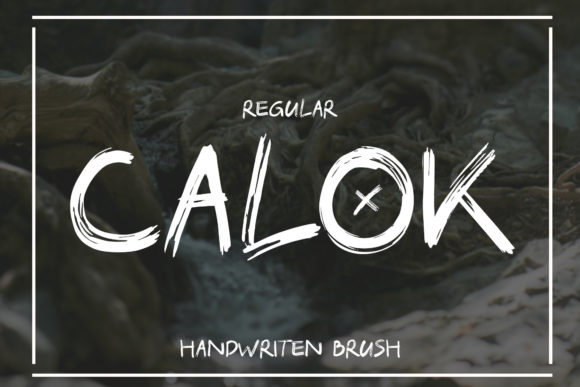
Journey into the realm of captivating expression with Calok Font, a remarkable display typeface that ignites the spirit of handwritten artistry. Sculpted by the skilled hands of Andri Nayoan, Calok Font emerges as a symphony of fluid strokes and organic textures. Its meticulously crafted characters exude a raw, authentic charm that breathes life into your creative endeavors.
Unleash the boundless possibilities of Calok Font and transform ordinary designs into captivating masterpieces. Dive into a world where imagination reigns supreme, and your creations take on a life of their own. Whether you're crafting eye-catching t-shirts, designing sportswear that exudes energy, or creating logos that leave a lasting impression, Calok Font is your steadfast companion.
Envision your designs adorned with Calok Font's elegant curves and dynamic brushstrokes. Picture your t-shirts becoming canvases for your artistic expression, your sportswear radiating an aura of athleticism and individuality, and your logos etching themselves into the minds of your audience. Calok Font is the key that unlocks a world of visual storytelling, empowering you to communicate your message with unparalleled impact.
With Calok Font, you'll discover a font that seamlessly adapts to your creative vision. Its versatile nature allows it to blend effortlessly with a myriad of design styles, from the bold and energetic to the understated and elegant. Whether you're designing advertisements that demand attention or creating clothing that reflects your unique style, Calok Font rises to the occasion, delivering exceptional results every time.
Embark on a creative odyssey with Calok Font and witness the transformation of your designs. Let your imagination soar as you explore the endless possibilities that this remarkable font presents. Calok Font is not just a font; it's an invitation to embark on a journey of self-expression and artistic fulfillment. Seize this opportunity to elevate your designs and leave an indelible mark on the world.